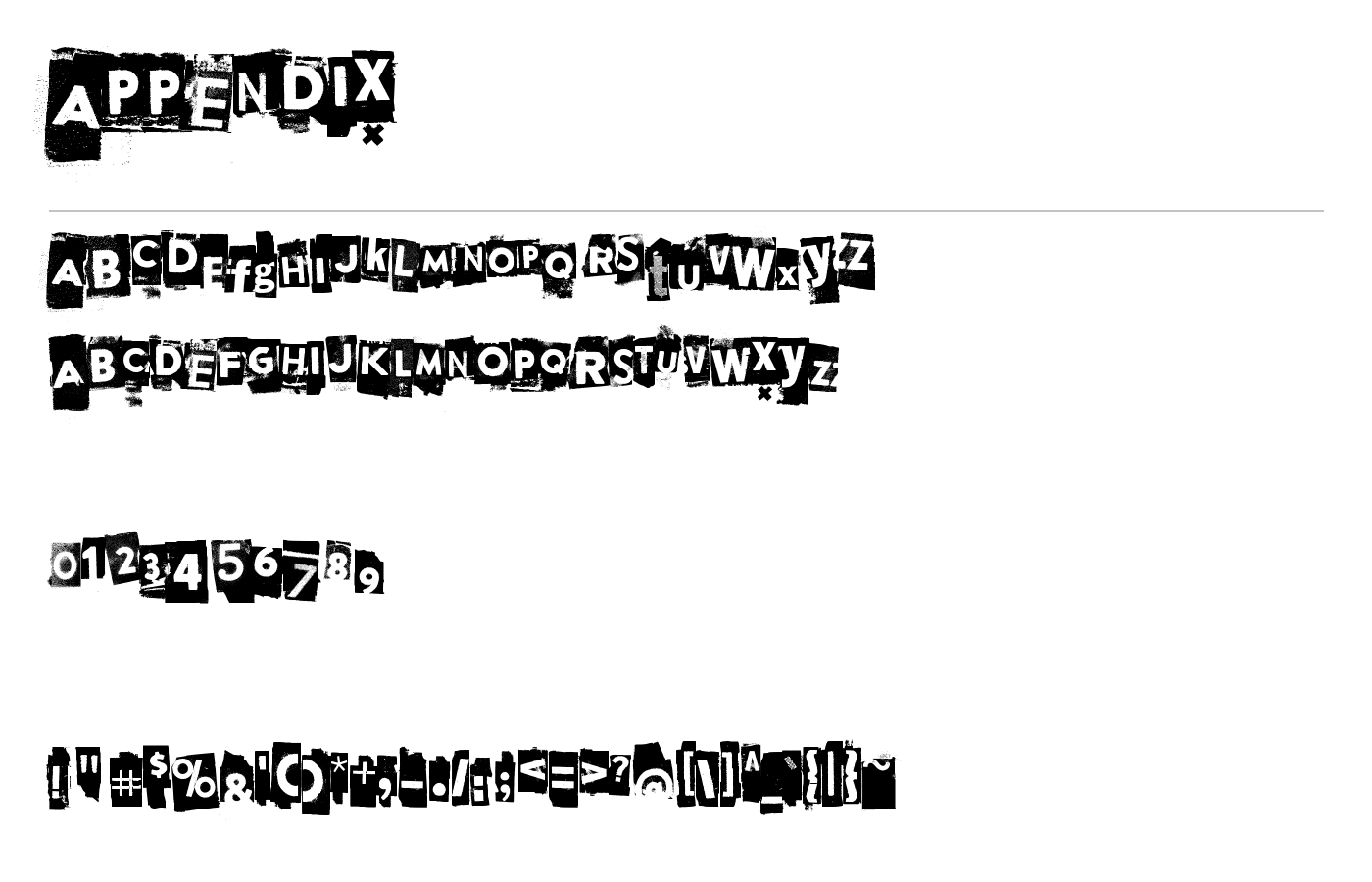
Appendix Font is a bold, distressed sans-serif typeface that mimics the look of cut-out letters from magazines or newspapers, creating a chaotic, ransom-note style. Its uneven, irregular letterforms and high-contrast black-and-white blocks give it a raw, edgy, and rebellious personality, perfect for eye-catching headlines, posters, or designs with a grunge or DIY aesthetic. This font works best in creative, informal contexts where its playful, disruptive vibe can truly stand out.
Appendix Font
About Appendix Font
| Font family | Appendix Font |